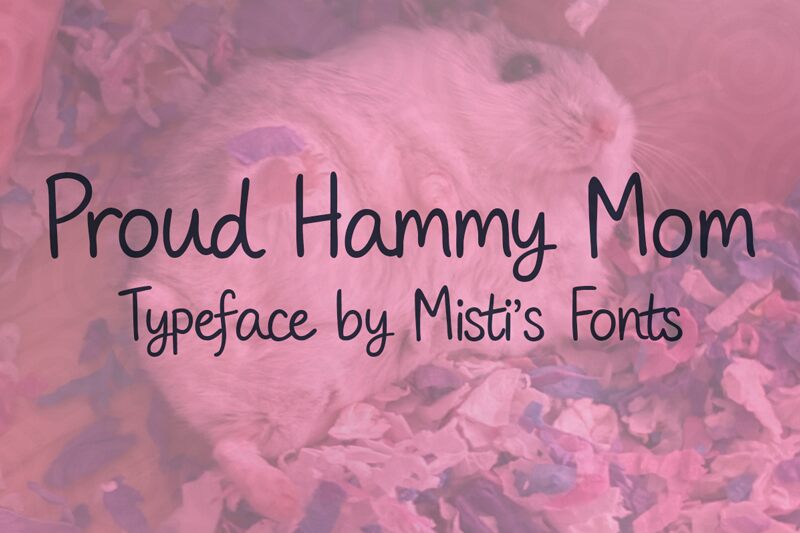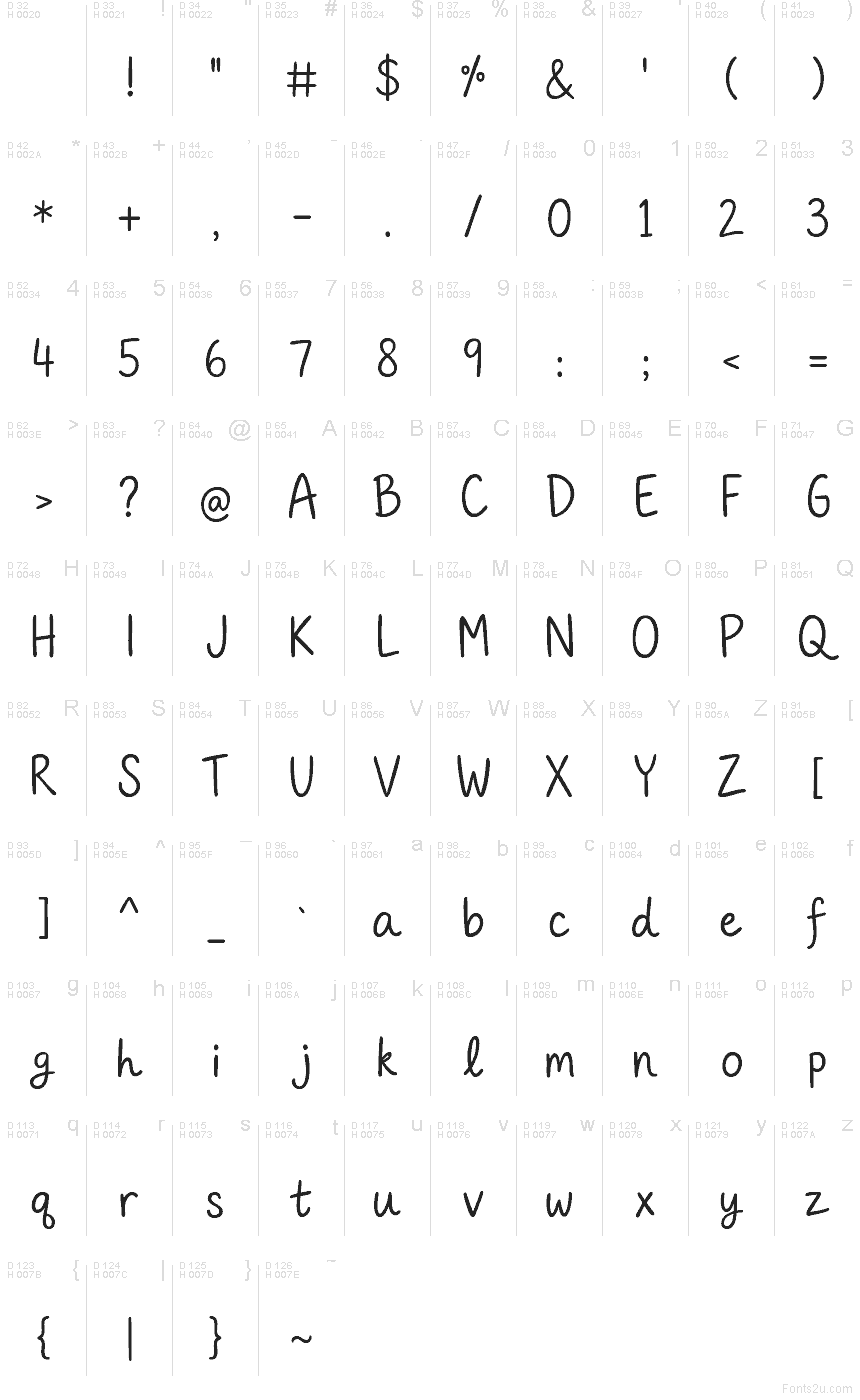
Proud Hammy Mom by Misti's Fonts is a free handwritten font with tall, narrow letters and an easy marker-drawn look. Uneven stroke widths and gently wandering shapes keep it personal.
Pet owners and family-focused makers will find it especially suited to cheerful social posts. Its slim, informal lettering also gives pet shop packaging and handmade merchandise the warmth of a quick note. For publishing, it can lend scrapbook pages and lighthearted pet columns a friendly first-person voice.